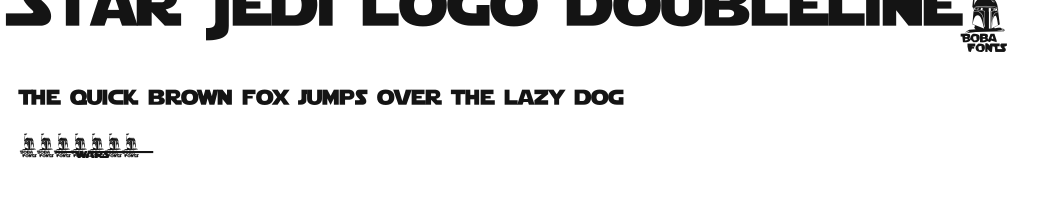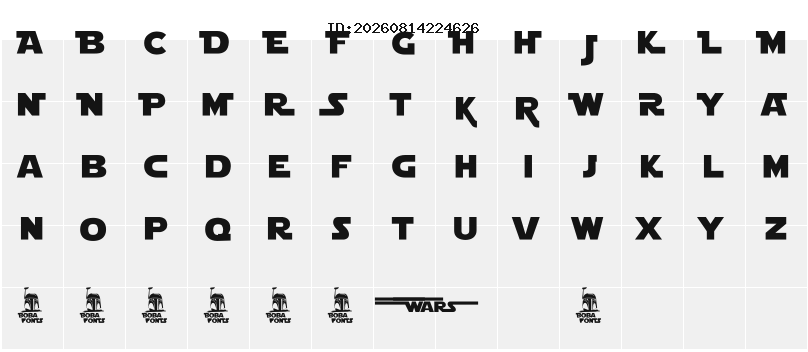
• Font Name: Star Jedi Logo DoubleLine2
About Star Jedi Logo DoubleLine2.ttf
Star Jedi Logo DoubleLine2.ttf is a modern, elegant sans-serif font designed for ultimate readability and visual harmony. Perfect for branding, headlines, web design, and print materials.